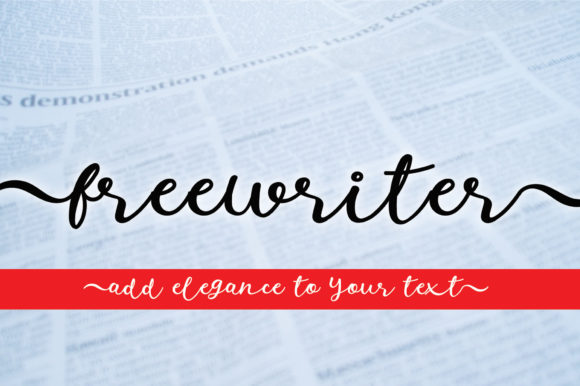
Immerse yourself in the enchanting realm of Freewriter Font, a masterpiece inspired by the graceful strokes of a fountain pen. Its whimsical characters dance across the baseline like a symphony of romance, adding a touch of luxury to every creative vision. Whether you're crafting heartfelt notes, designing exquisite invitations, or adding a personal touch to your artwork, Freewriter empowers you to express your emotions with elegance and flair. Its timeless beauty and versatility make it an indispensable tool for every creative soul.
Freewriter Font is the perfect choice for those who seek to evoke a sense of elegance, romance, and individuality. Its enchanting script is a testament to the power of words, instantly transforming your creations into works of art. With Freewriter, you can effortlessly convey the depth of your emotions, leaving a lasting impression on every reader and viewer. Its carefully crafted curves and flourishes add a captivating touch that will make your designs stand out from the ordinary.
Indulge in the beauty of Freewriter Font and elevate your creative projects to new heights. Let its charming characters dance across your pages, adding a touch of magic and inspiration to every endeavor. With Freewriter, you'll discover a world of possibilities, where your words and designs will come to life with unparalleled style and allure.